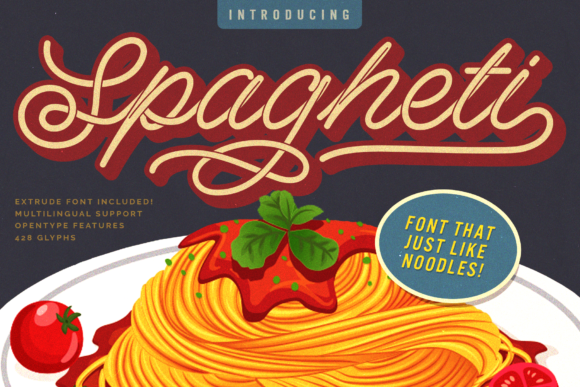
Behold the Spagheti Font, an exquisite script font that serves as a tribute to life's delectable pleasures. With its beautiful curves and delightful personality, this font will add a touch of charm and sophistication to any creative endeavor, making it an instant favorite among discerning designers.
Unleash your culinary expertise and craft mouthwatering menus, eye-catching packaging labels, and tempting social media posts that will leave your audience craving more. Capture the essence of a relaxing getaway with stylish travel brochures and postcards that transport your readers to serene destinations. Whether you're designing invitations for a special occasion or creating personalized gifts for loved ones, the Spagheti Font will add an extra layer of elegance and charm.
The Spagheti Font is not just a font; it's an experience. Immerse yourself in its playful spirit and let your creativity soar. Let the font's graceful lines dance across your screen, guiding you on a journey of inspiration and boundless possibilities. Its versatility extends far beyond mere words, enabling you to craft stunning logos, eye-catching headlines, and unforgettable branding materials that will leave a lasting impression.
Join the culinary revolution and savor the delightful flavors of the Spagheti Font. Elevate your designs to new heights of artistry, engage your audience with captivating visuals, and create a lasting legacy of beauty and delight. Embrace the Spagheti Font today and embark on a flavor-filled adventure that will ignite your imagination and leave your creative taste buds tantalized.